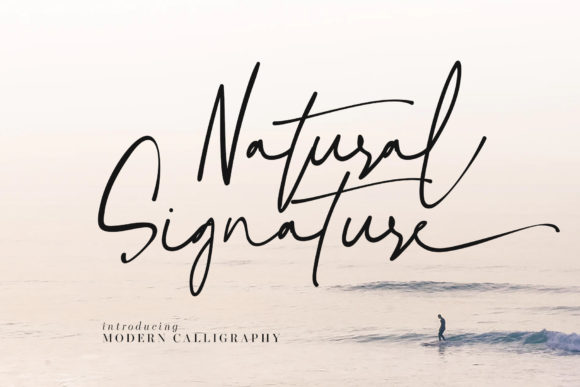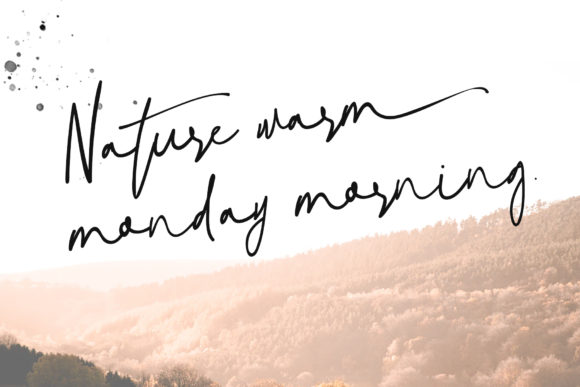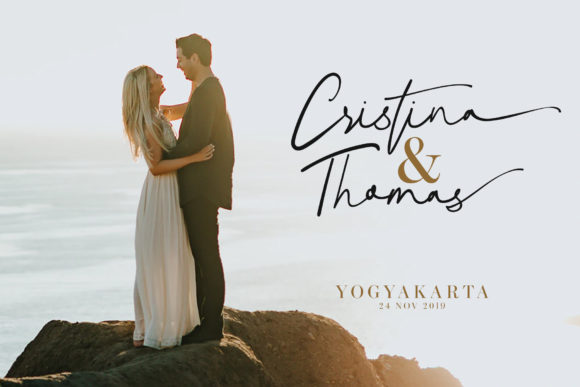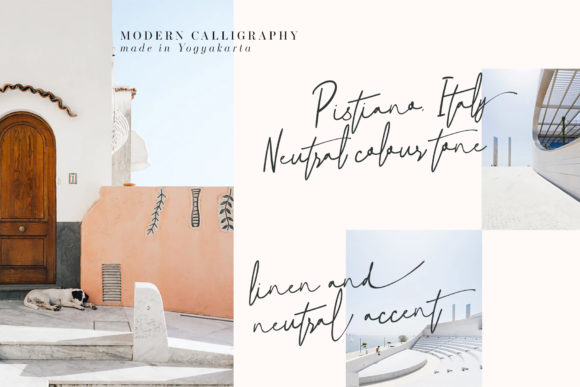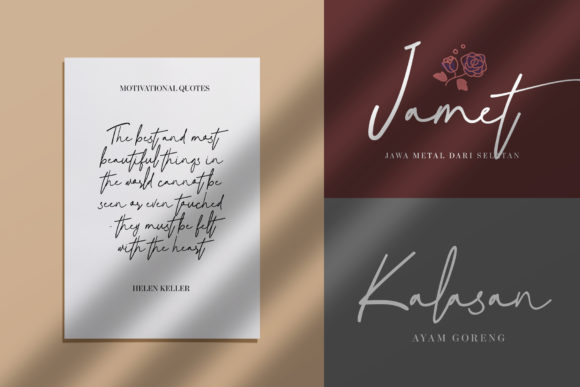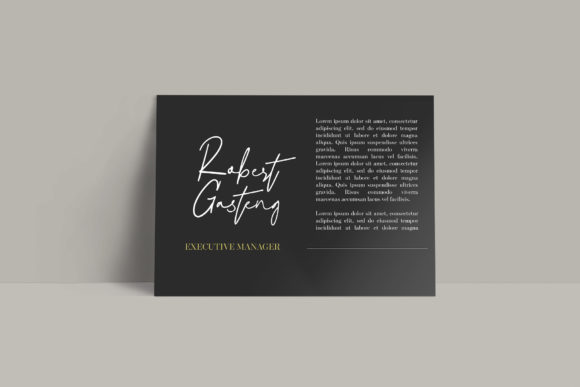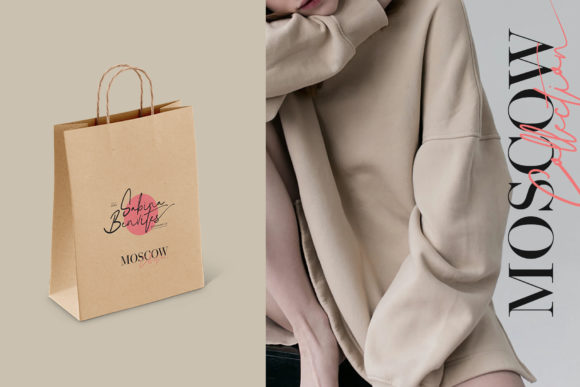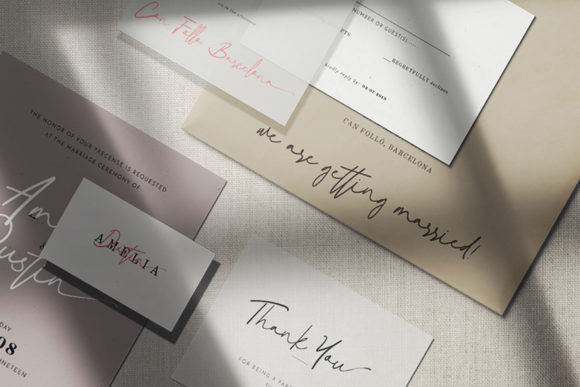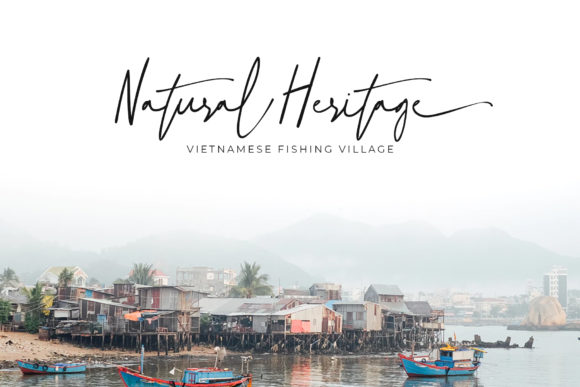
Natural Signature Font
About Natural Signature Font
Natural Signature is an organic and charming script with a unique vibe. Fall in love with its playful and authentic style!